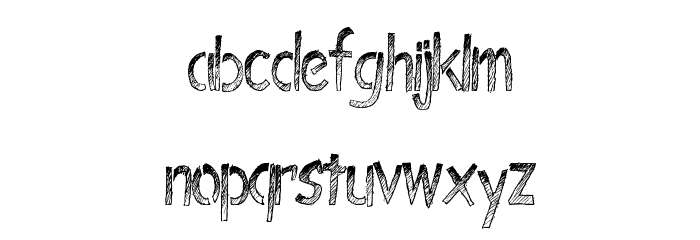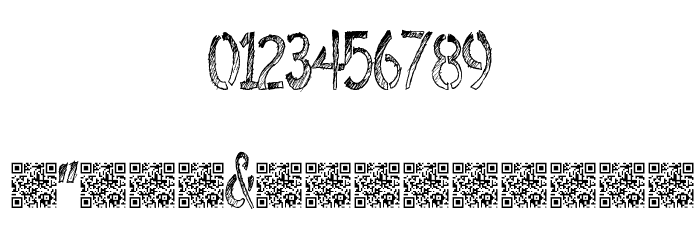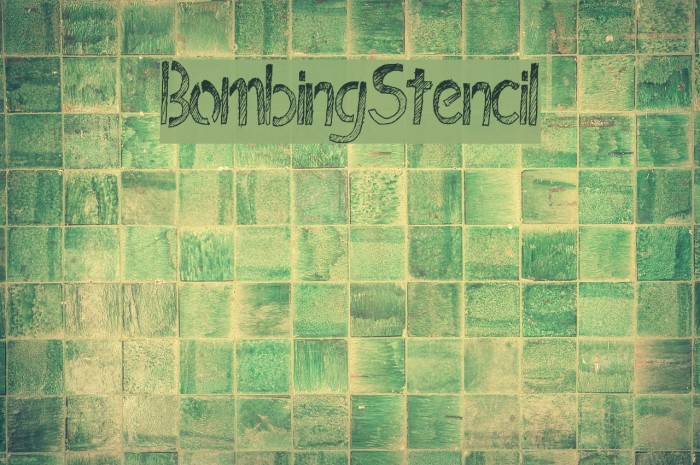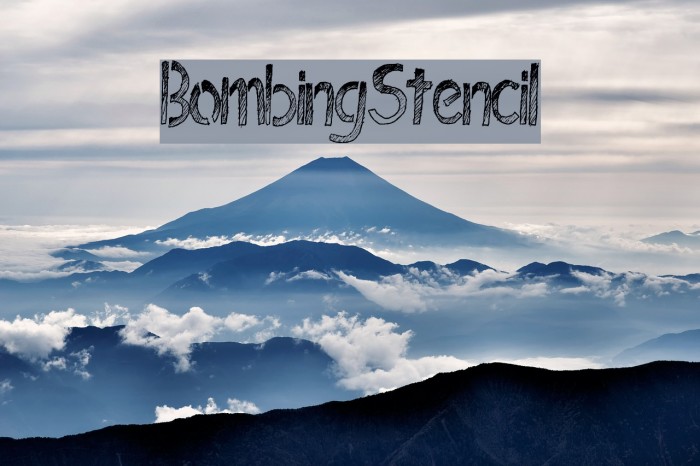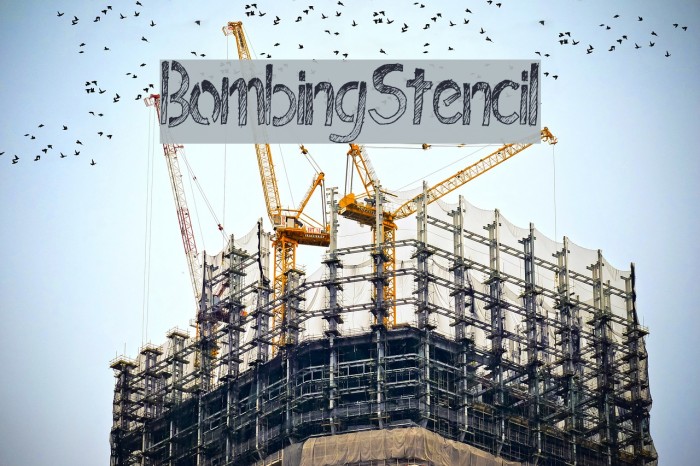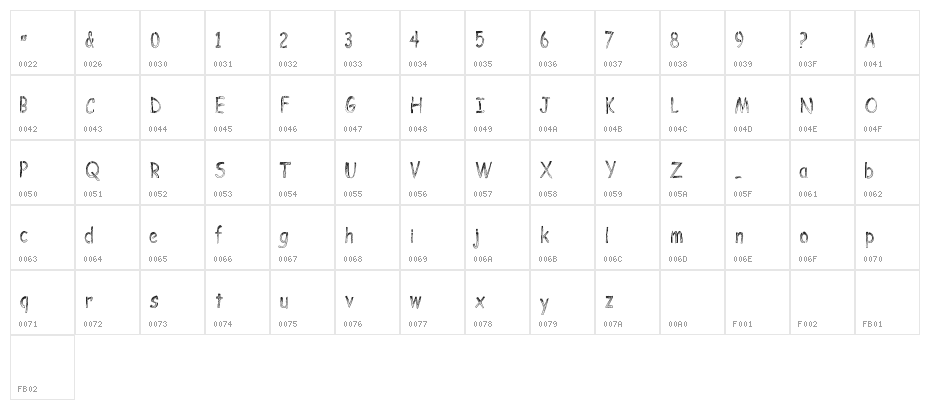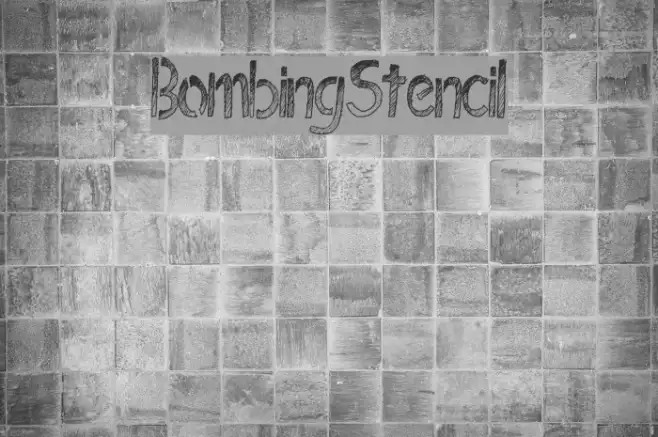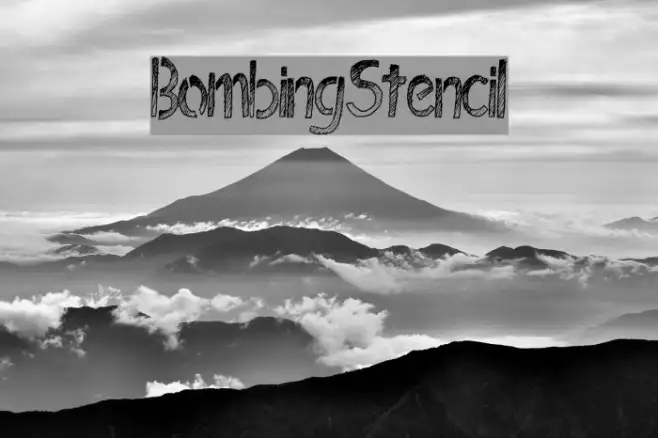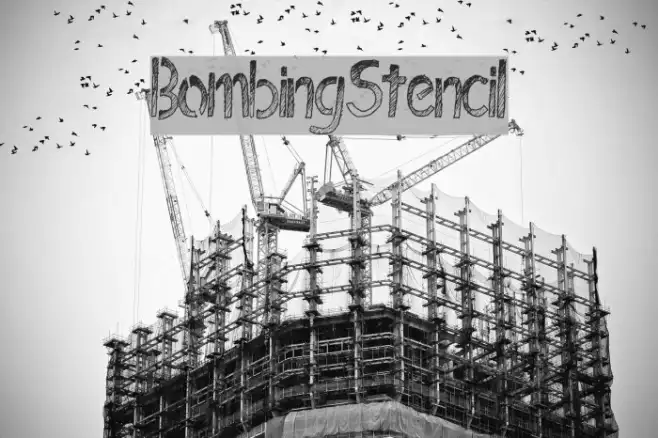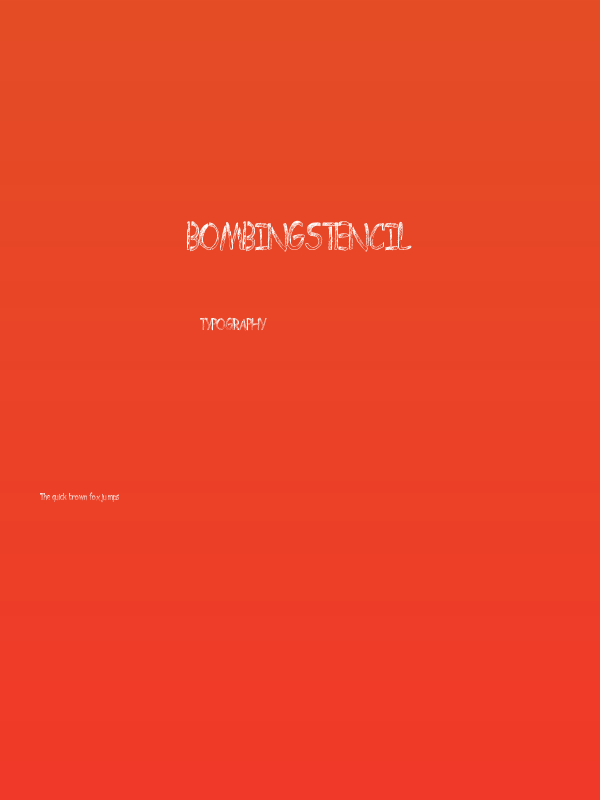
BombingStencil Font
This font features a bold and edgy stencil design, characterized by its rough, hand-drawn appearance. The letters are crafted with a distinct, graffiti-like style, giving it a rebellious and urban feel. The uppercase and lowercase letters maintain a consistent aesthetic, with jagged edges and a textured fill that mimics spray paint. Numbers and special characters follow the same design principles, ensuring a cohesive look across all glyphs. This font's unique style makes it stand out, ideal for projects that require a bold statement.
A bold, graffiti-inspired stencil font with a rough, hand-drawn texture.
- Proposed Projects: Ideal for street art designs, urban-themed posters, edgy branding, and music album covers.
- Overall Style: Urban, Edgy, Graffiti